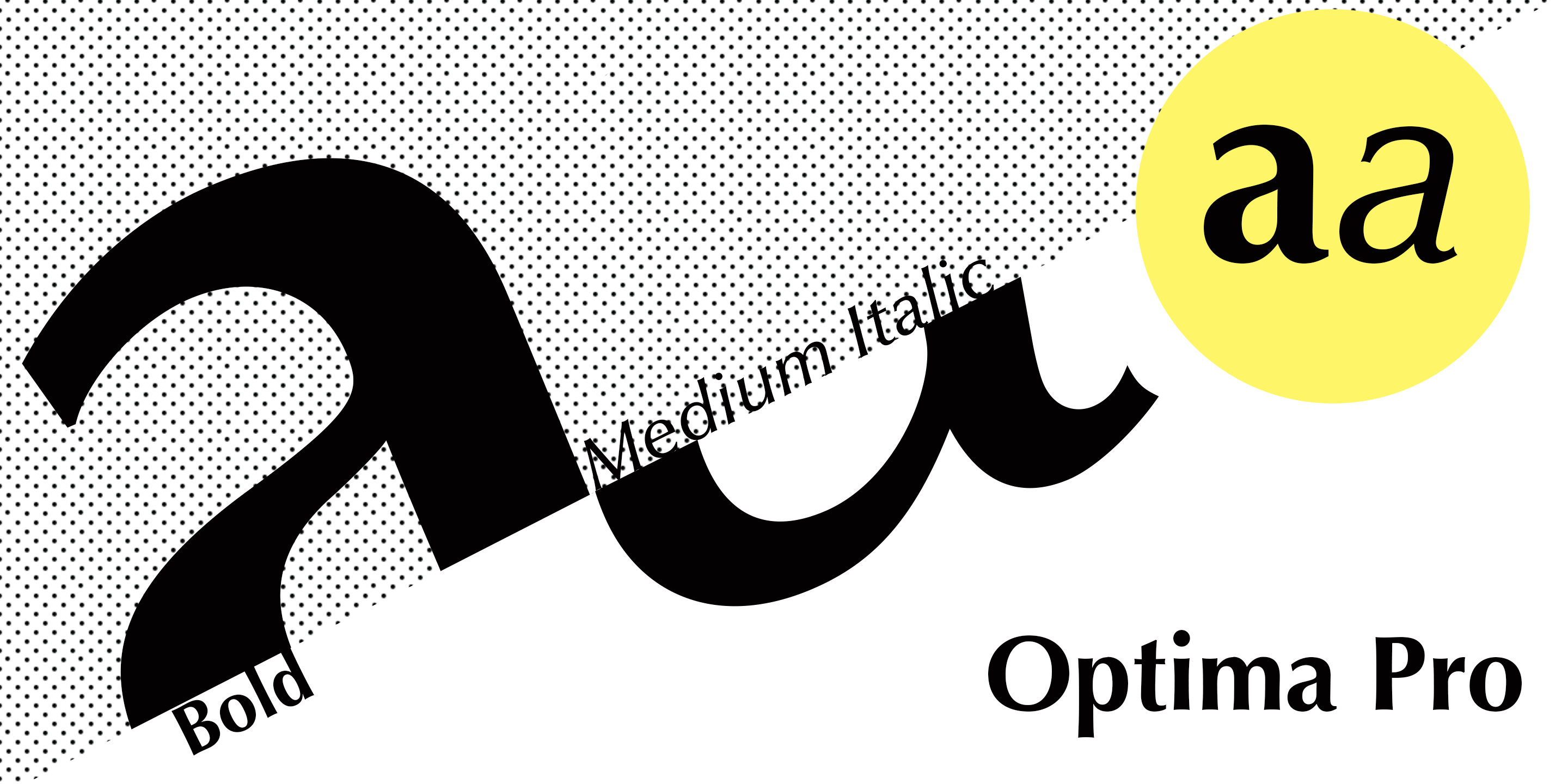
Discover the elegant sophistication of Optima Font Free Download, Hermann Zapf's masterpiece that redefined sans-serif typography. This humanist classic blends the warmth of Roman inscriptions with modern clarity, creating a timeless typeface equally at home in luxury branding and editorial design.
Why Optima Stands Apart
1. Unparalleled Elegance
Subtle stroke modulation inspired by Roman lettering
Flared terminals for refined character
Perfect balance of formality and approachability
2. Versatile Applications
Masterfully crafted for:
Memorial and religious inscriptions
High-end jewelry branding
Literary publications
Cultural institution branding
Professional correspondence
3. Technical Excellence
Multiple weights from Light to Bold
True italic variants
Extended language support
Exceptional readability in print
Professional Implementation
Optima Font Free Download excels in:
Luxury brand identities
Academic diplomas and certificates
Museum exhibition graphics
Premium packaging design
Architectural signage
Create harmonious typographic systems
Designer Tip: Use small caps for elegant, unobtrusive emphasis in body text.
Optima Font Free Download – Where classical beauty meets modern functionality!
Key Advantages:
Maintains authority without stiffness
Exceptional legibility in long texts
Perfect for engraving and embossing
Why It's Timeless:
Optima's unique ability to bridge classical and contemporary aesthetics makes it perpetually relevant across design eras.
Perfect Pairing:
Combine with a crisp sans-serif like Univers for sophisticated contrast.
Pro Insight:
The Medium weight is particularly effective for memorial plaques, offering dignified presence without heaviness.
Includes true small caps
Alternative number styles
Special ligatures
Design Heritage:
Created in 1958, Optima was inspired by Zapf's study of Roman inscriptions in Florence, revolutionizing sans-serif design.
Expert Recommendation:
Use for cosmetic packaging where elegance and natural appeal are paramount.
Technical Note:
The font's subtle stroke variation reproduces beautifully in foil stamping and engraving applications.
This font may cause heightened appreciation for classical typography and spontaneous museum visits. Use for designs requiring quiet sophistication!